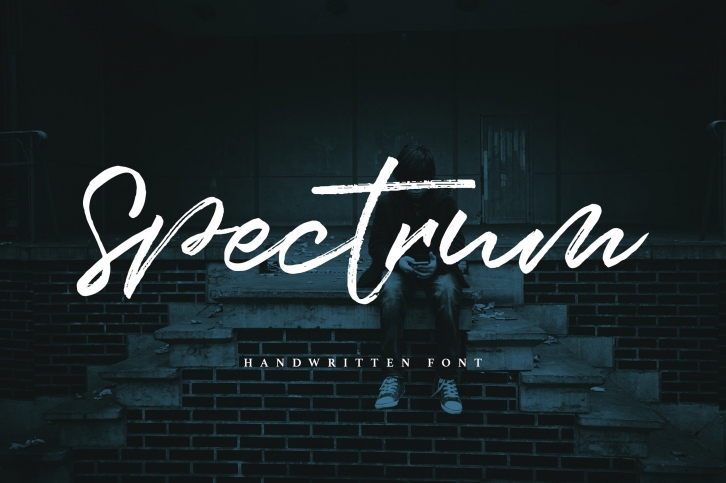
Spectrum is handwritten signature style font with natural and authentic texture. Perfect for branding projects, quotes, poster, homeware designs, product packaging, t-shirt, business card, social media & greeting cards. It contains a full set of lower & uppercase letters, a large range of punctuation, numerals, and multilingual support.
The Spectrum font also contains several ligatures and stylistic alternates for lower and uppercase characters, accessible in the Adobe Illustrator Glyphs panel, or under Stylistic Alternates in the Adobe Photoshop OpenType menu. But If you don't have any opentype specific software, you can still use Spectrum as is with its standard lowercase and uppercase letters.